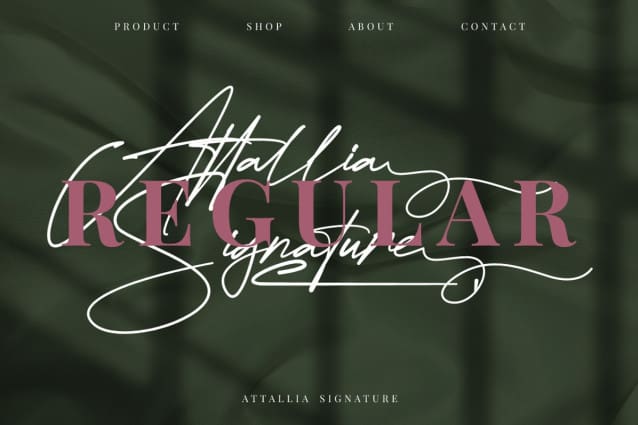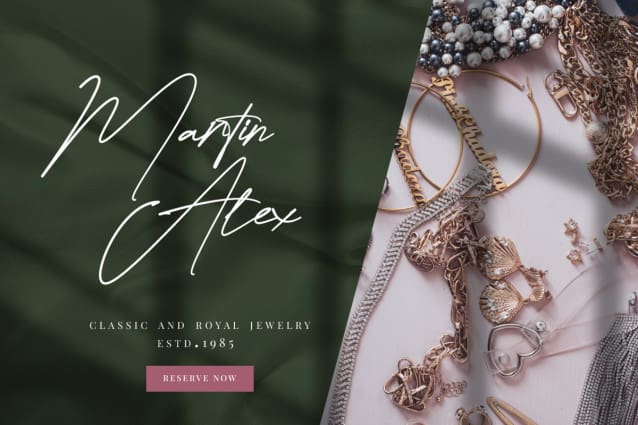
Attallia Signature Font
Attallia Signature Font – Monoline Signature Font , from FinTypeStudio, suitable for any projects such as: logos, branding projects, homeware designs, product packaging, mugs, quotes, posters, shopping bags, t-shirts, book covers, name card, invitation cards, greeting cards, label, photography, watermark, special events, and all your other lovely projects that need a beautiful script taste.